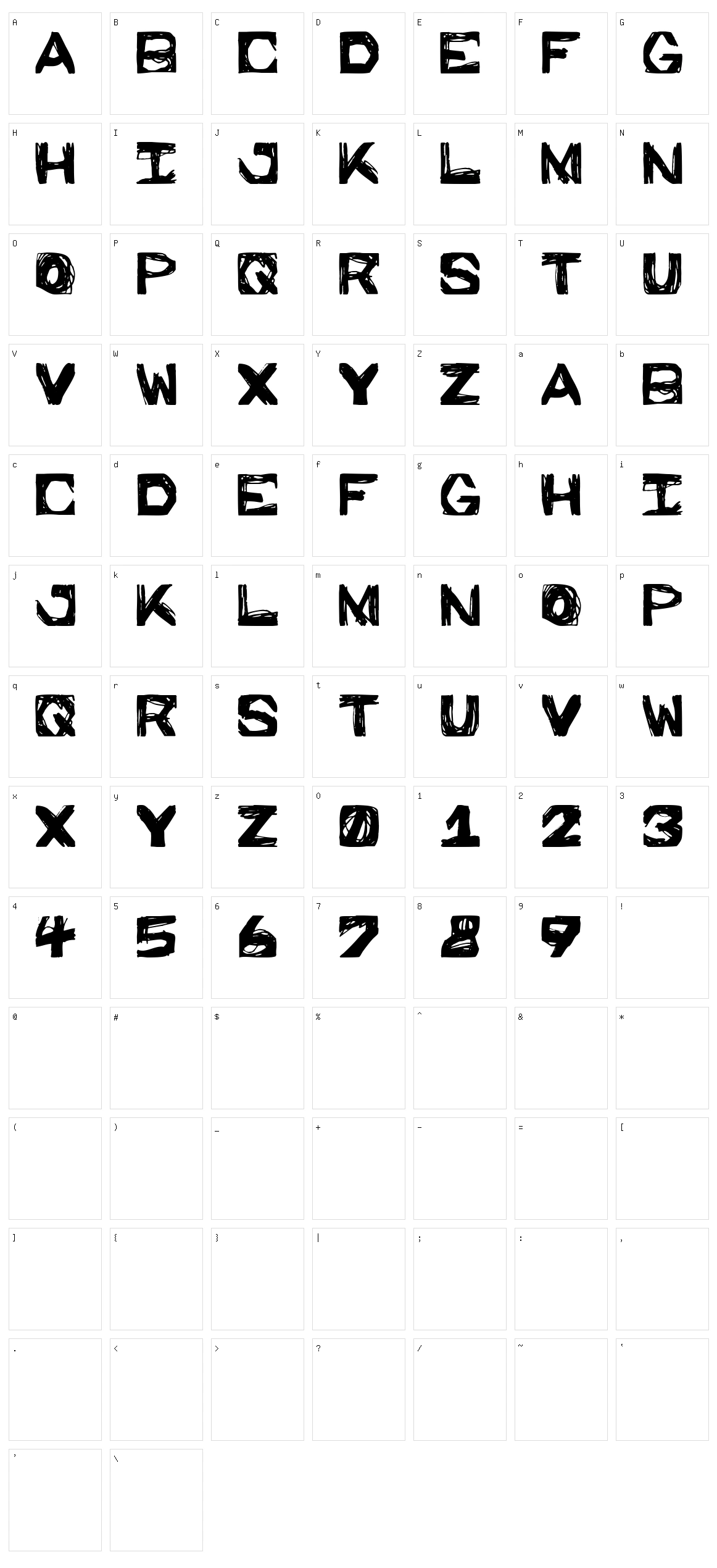
PRISON WALLS
A TrueType Font by S. John Ross
Here's a rough-and-tumble poster font created by savagely hand-scribbling the letters within the clean bounds of a square template (hence the title). It's quick and decidedly dirty, with just the alphanumerics, but it may have some graphic-design uses if you're assembling handbills for a bar band or something (the ultimate wish of any font, I firmly believe without a hint of irony, is to be used on handbills for a bar band, but living in Austin may be clouding my priorities somewhat).
I made the masters for this font last fall as an exercise along with several others in a similar style. It was drawn at the 503 Coffee Bar near South First and Oltorf - one of the very best little hangouts in the city.